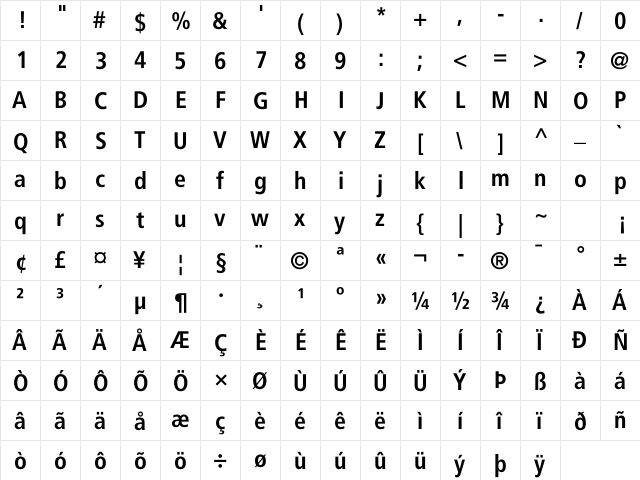
Frutiger LT Com 67 Bold Condensed
| Foundry | Linotype GmbH |
| Designer | Adrian Frutiger |
Design Context for Frutiger LT Com Typeface
Frutiger LT Com takes a measured approach to typography — its balanced proportions and neutral character make it a reliable workhorse for both digital and print work. The heavy weight commands attention and anchors typographic hierarchies. Its narrow stance lets it pack a punch even in space-constrained designs.